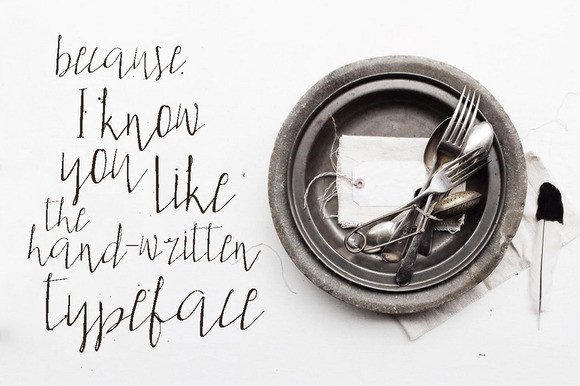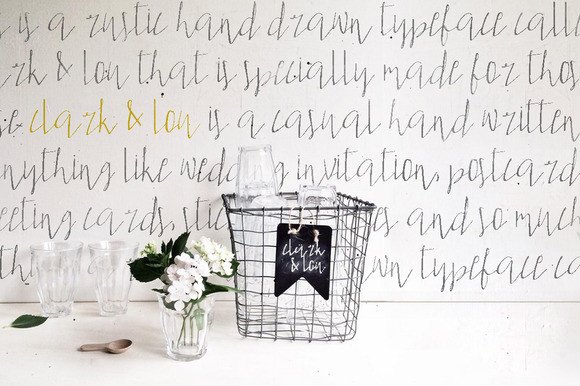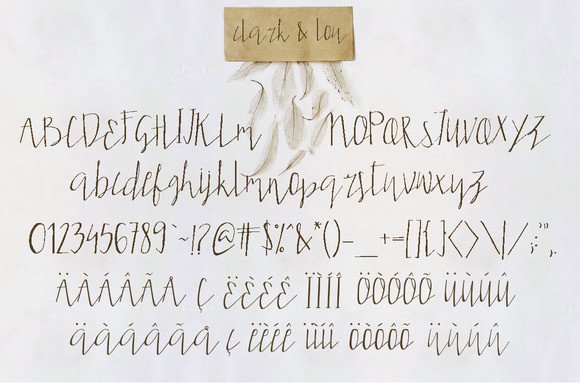
Introduction to Clark & Lou Font
Have you ever stumbled upon a beautiful handwritten note in the mail, and felt like it was written just for you? That’s the magic of the Clark & Lou Font, a rustic, feminine handwriting typeface that adds a touch of warmth and personality to any design project. Whether you’re crafting a wedding invitation, a birthday card, or a heartfelt letter, this charming font is sure to make it extra special.
As a designer, you know how valuable it is to have access to high-quality design resources that can elevate your creative projects. The Clark & Lou Font is a free download that’s perfect for designers of all levels, offering a transparent background and endless possibilities for customization. With its elegant, handwritten script, this font is a must-have for anyone looking to add a touch of whimsy and romance to their designs.
Key Features of Clark & Lou Font
- High-quality font design with a transparent background, making it ideal for creative projects.
- Features a unique, modern design with a subtle touch, making it perfect for branding, logos, and other creative applications.
- Supports a wide range of languages, including Latin, Cyrillic, and Greek, expanding its usability across different projects.
- Designed with a high resolution, allowing for crisp and clear rendering on various devices and screens.
Honest Review: Clark & Lou Font
I recently stumbled upon the Clark & Lou Font while searching for a high-quality design resource to enhance my creative project. I was impressed by its clean and elegant aesthetic, making it perfect for a variety of applications.
- ✨ The font’s transparent background allows for seamless integration with any design, giving me complete creative freedom.
- ✨ The font’s versatility makes it suitable for both digital and print projects, from logos to branding materials.
- ⚠️ The font may not be ideal for projects requiring a bold, attention-grabbing font, as it leans towards a more minimalist approach.
Overall, I’m impressed with the Clark & Lou Font and would recommend it to designers seeking a high-quality, versatile font for their creative projects. While it may have some limitations, its benefits far outweigh them, making it a valuable addition to any design resource library.
How to Use Clark & Lou Font
The Clark & Lou Font is a high-quality design resource ideal for various creative projects. It features a transparent background, making it easy to customize and integrate into your design.
The Clark & Lou Font is suitable for various creative projects, including:
– Social media graphics
– Blog posts
– Brochures
– Business cards
– Infographics
To get the most out of the Clark & Lou Font, consider the following tips:
– Experiment with different font sizes and styles to achieve a unique look.
– Combine the Clark & Lou Font with other design elements to create a visually appealing design.
– Use the font’s transparent background to create a seamless design.
Alternatives to Clark & Lou Font
Great Vibes is a high-quality, elegant script font that’s perfect for creative projects requiring a touch of sophistication. It’s available for free download and features a transparent background, making it ideal for overlaying on images. Great Vibes is a great alternative to Clark & Lou Font for designers who want a more refined look for their design resource.
Alex Brush is a beautiful, handwritten font that’s great for designers who want to add a personal touch to their creative project. It features a high-quality design and is available for free download, making it a great alternative to Clark & Lou Font for designers on a budget. Alex Brush is ideal for use in invitations, quotes, and other design elements that require a unique, handwritten look.
Can I use Clark & Lou Font with a transparent background?
Yes, Clark & Lou Font supports transparent backgrounds, making it perfect for designs that require a subtle, non-distracting typography. The font’s transparent background feature allows you to overlay it on images or other design elements without compromising its legibility or aesthetic appeal.